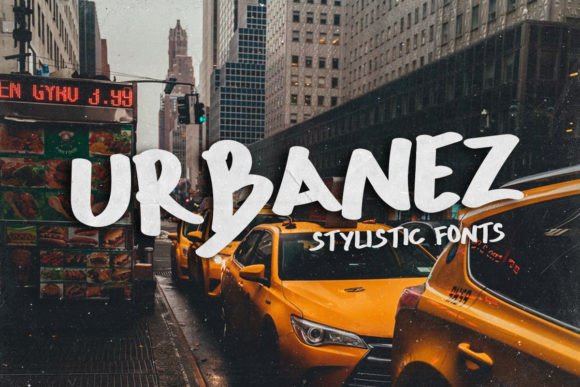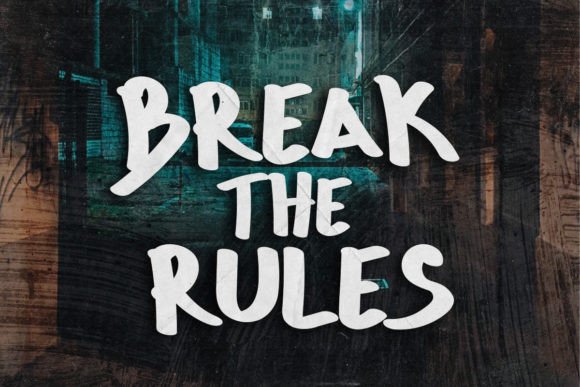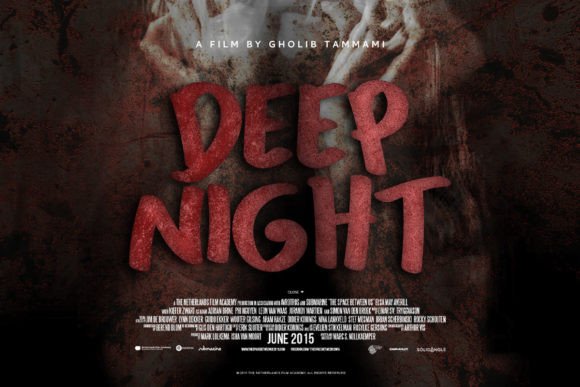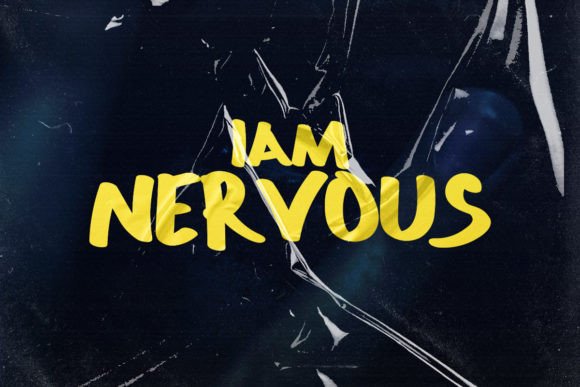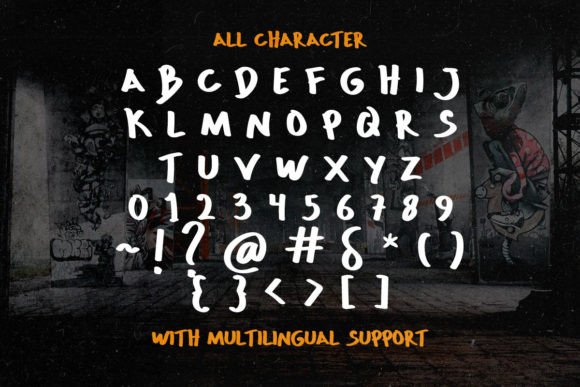
Urbanez Font
About Urbanez Font
“Urbanez” is not just a font; it’s a unique and modern display typeface that exudes a cool graffiti vibe. Meticulously designed with an urban flair, this font brings a trendy and contemporary style to a wide variety of creative projects.
The uniqueness of “Urbanez” lies in its modern display style. The characters are crafted with precision, capturing the essence of graffiti art while maintaining a distinct and stylish appearance. This makes the font well-suited for projects that demand a touch of urban coolness and trendiness.
The graffiti vibe of “Urbanez” adds a dynamic and edgy feel to your designs. Whether you’re working on logos, branding, posters, or any creative endeavor, this font injects a sense of urban energy that resonates with modern aesthetics. Its versatility allows it to complement various design contexts, making it a valuable asset for creatives seeking a font that stands out.
“Urbanez” is tailor-made for projects that embrace an urban, street-style vibe. It effortlessly communicates a contemporary and edgy aesthetic, making it suitable for a wide range of applications, from streetwear branding to bold poster designs. Its cool and graffiti-inspired elements make it an excellent choice for those looking to infuse their projects with a touch of modern street art.
In summary, “Urbanez” is more than just a font; it’s a unique and modern display typeface with a cool graffiti vibe. Embrace its urban style for logos, branding, posters, and more, confident that “Urbanez” will add a trendy and contemporary edge to your creative projects. Let it be the font that brings a touch of street art coolness to your design endeavors.